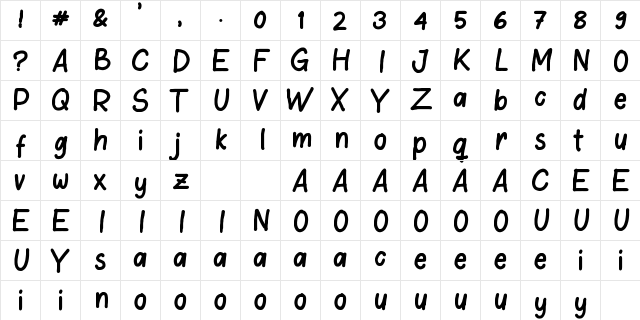
Childhood Memories Regular
Design Context for Childhood Memories Typeface
Childhood Memories trades formality for fun, with bouncy, characterful letterforms that bring warmth and energy to any project.
Font Pairing: Pairs well with a rounded or humanist sans for body copy, maintaining the friendly tone without relying on Childhood Memories to carry extended reading.
Pro Tip: Use Childhood Memories at larger display sizes where its expressive character can land. Pair with a clean, simple sans for body copy to maintain readability.